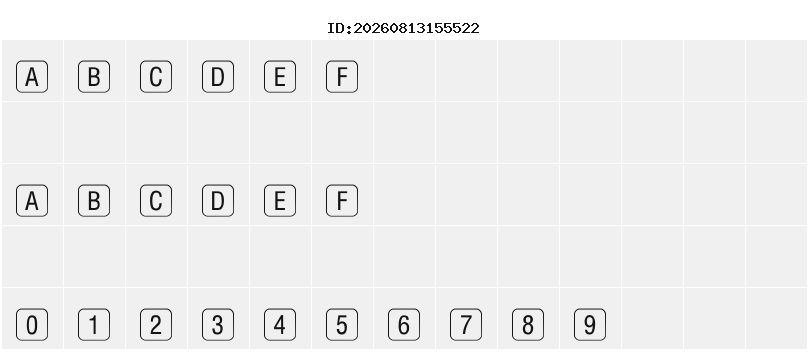
About RRKeyLettersLimited-Normal.ttf
RRKeyLettersLimited-Normal.ttf is a modern, elegant sans-serif font designed for ultimate readability and visual harmony. Perfect for branding, headlines, web design, and print materials.